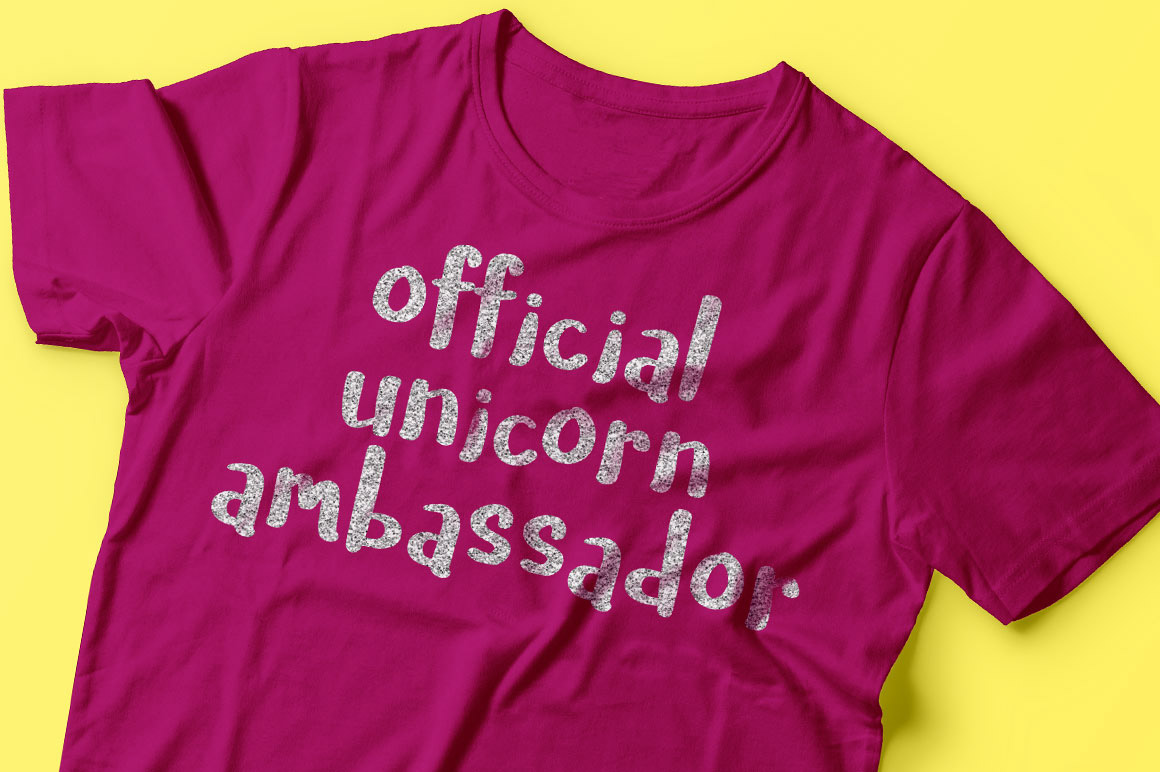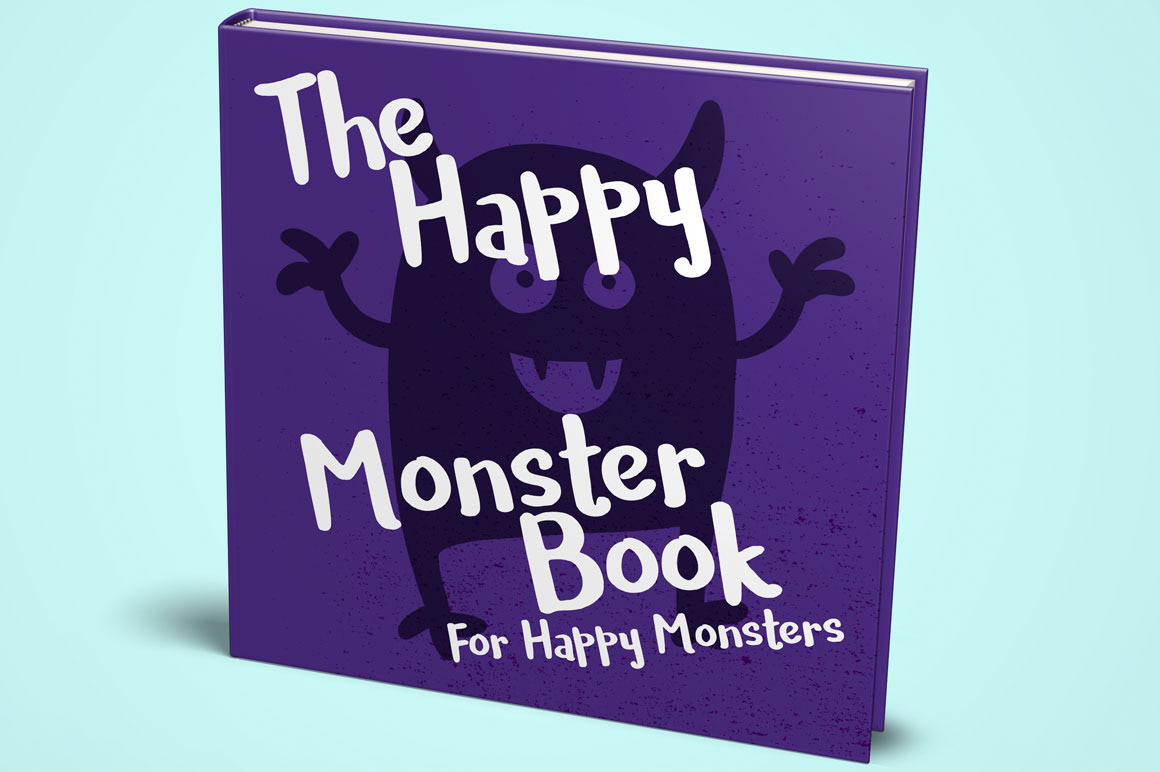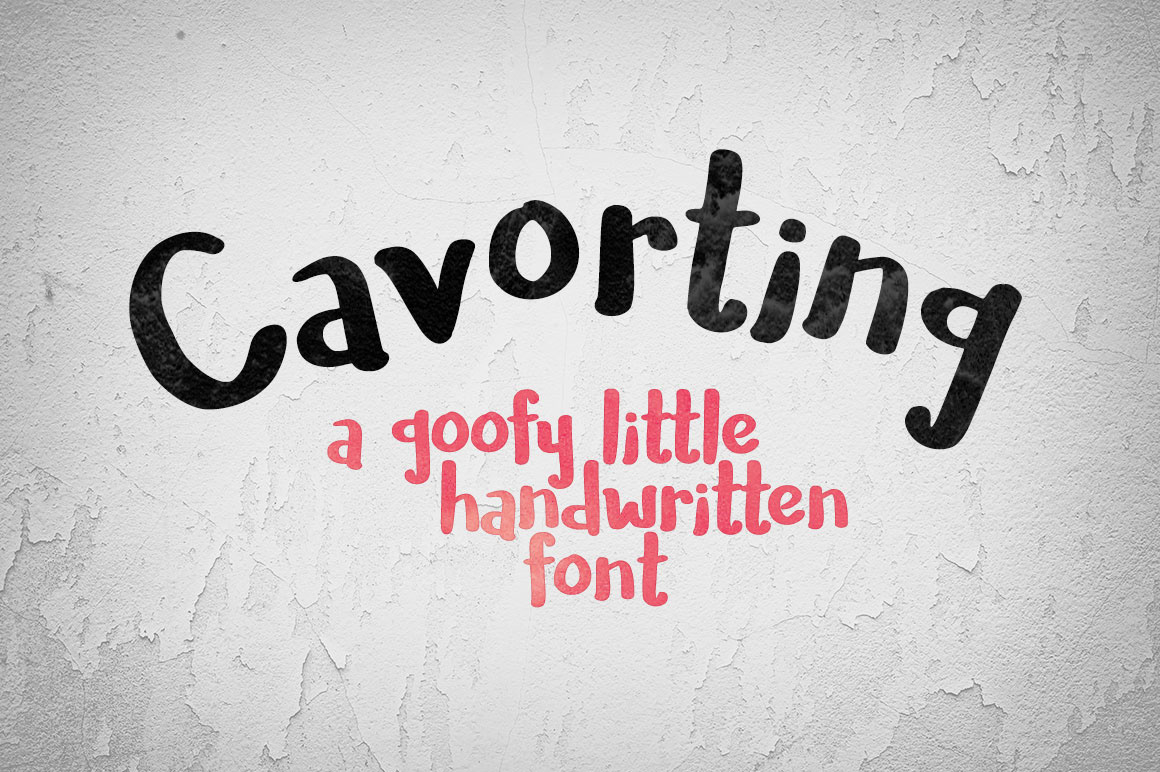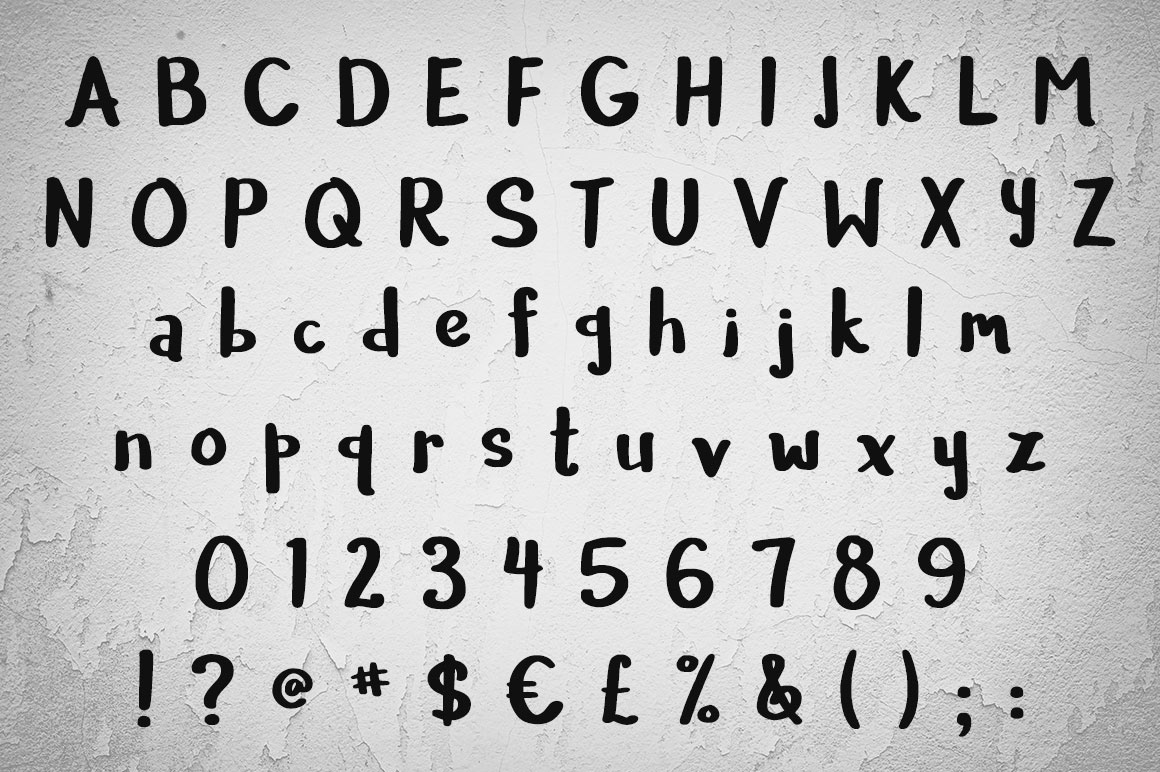
I created Cavorting to test out Type 3.2, software for font creation and editing. There's a free demo version if you want to try it -- it has the most intuitive pen tool of any of the font software options I've tried.
This is a one-day font: I created the letterforms and did all the spacing and kerning in one day. That means that there are probably some kerning pairs that aren't included, and some things might be a little off. But during that one day I did quite a few usability tests, and it looks good.
Note: Cavorting was created before I started to specialize in smooth fonts for crafters. So you may find this font more suitable for print work, and not as friendly in cutting machines.